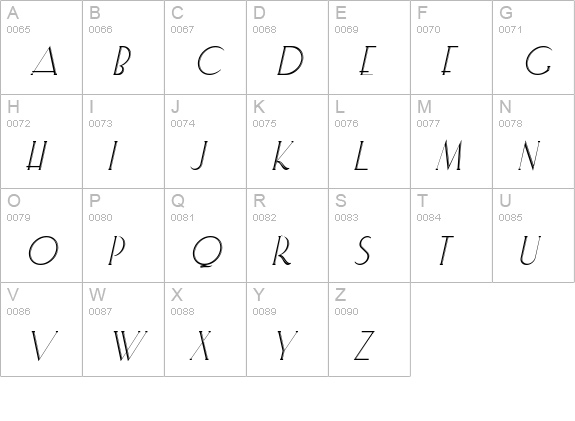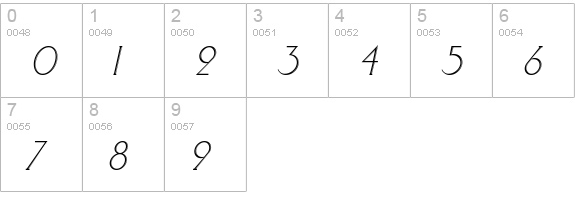
ElisiaInline Italic Font Details
ElisiaInline Italic is a distinctive, italic variant in the ElisiaInline typeface family \xE2\x80\x94 well suited to design and typography projects.
ElisiaInline Italic is a beautifully crafted font that exudes elegance and sophistication. With its sleek and modern design, this font is perfect for adding a touch of style to any project. The italicized characters add a touch of flair, making your text stand out in a unique way. The best part? ElisiaInline Italic is completely free to use! You can easily download this font from FontsMarket.com and start using it in your designs right away. Whether you're working on a branding project, website design, or any other creative endeavor, this font is sure to elevate your work to the next level. Don't miss out on the opportunity to enhance your designs with the beauty of ElisiaInline Italic font!